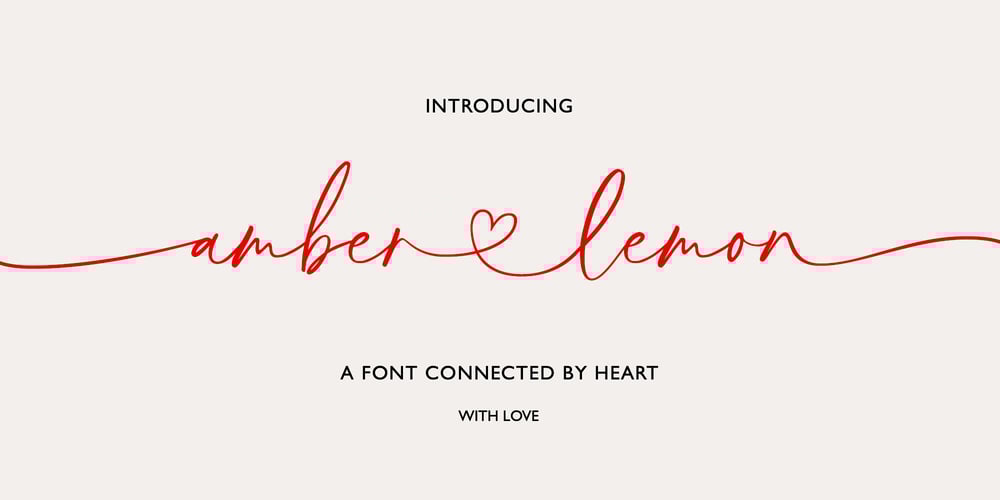
Amber Lemon Font Family was designed by Dmitrii Chirkov and published by Supfonts. Amber Lemon contains 3 styles and family package options. Amber Lemon is a cute handwritten signature font with heart and regular swashes.Perfect for greeting cards, wedding stationery, photographer watermarks logos, modern websites, apparel design and more.Amber Lemon features handwritten ligatures, beginning and end swashes for lowercase letters and heart connectionsThanks so much for checking out my shop, and please get in touch if you have any questions! Amber Lemon Font Features: Full Set of standard alphabet and punctuation Extra set of beginning and ending swashed lowercase Extra set of heart connections handwritten ligatures PUA Encoded – no special software needed to access extra characters Multilingual Characters AÁĂÂÄÀĀĄÅÃÆBCĆČÇĊDÐĎĐEÉĚÊËĖÈĒĘẼFGĞĢĠḠHĦIIJÍÎÏİÌĪĮĨJKĶLĹĽĻŁMNŃŇŅÑ OÓÔÖÒŐŌØÕŒPÞQRŔŘŖSŚŠŞȘẞTŤŢȚUÚÛÜÙŰŪŲŮŨVWẂŴẄẀXYÝŶŸỲỸZŹŽŻ aáăâäàāąåãæbcćčçċdðďđeéěêëėèēęẽfgğģġḡhħiıíîïìijīįĩjȷkķlĺľļłmnńňņñoóôöòőōøõœpþ qrŕřŗsśšşșßtťţțuúûüùűūųůũvwẃŵẅẁxyýŷÿỳỹzźžż